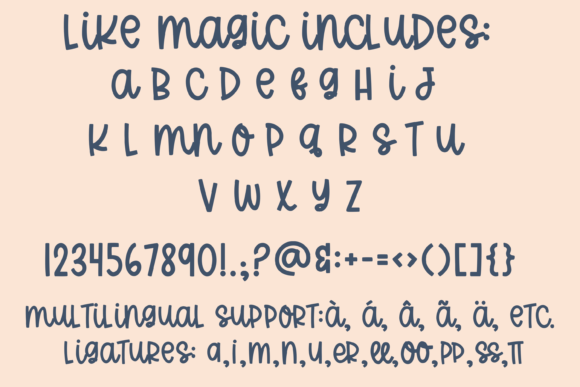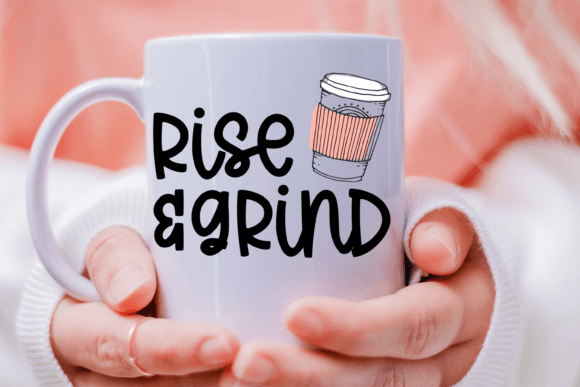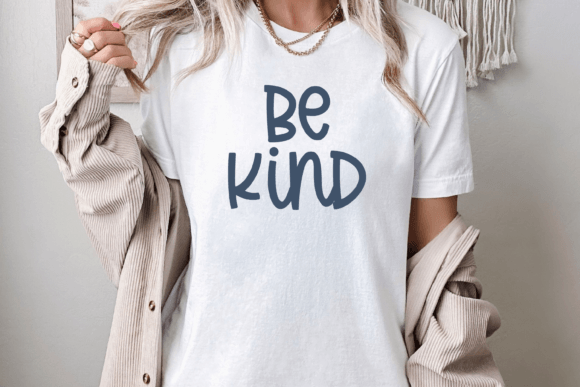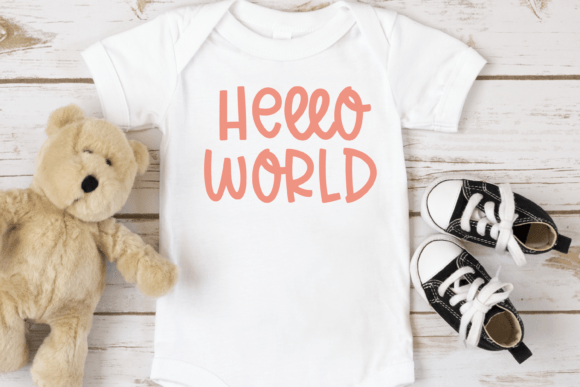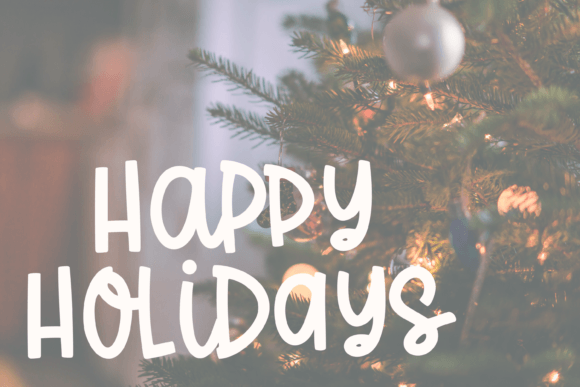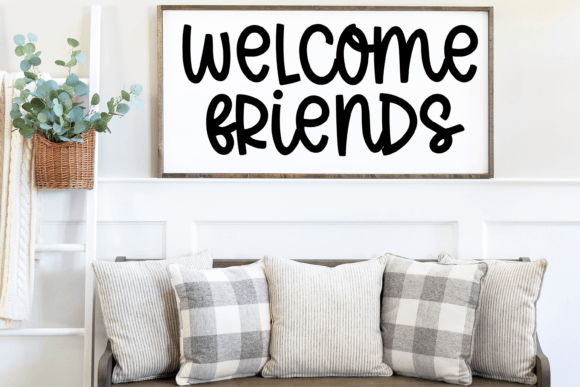
Introduction to Like Magic Font
Introducing Like Magic, our cute handwritten script font for Cricut & more, perfect for all your creative projects.
Whether youโre a Cricut enthusiast or simply looking for a charming cursive font, this handwriting font brings a delightful touch to invitations, greeting cards, and personalized crafts Our script font is compatible with Cricut SVGs, Goodnotes, Procreate, and many other programs.
Key Features of Like Magic Font